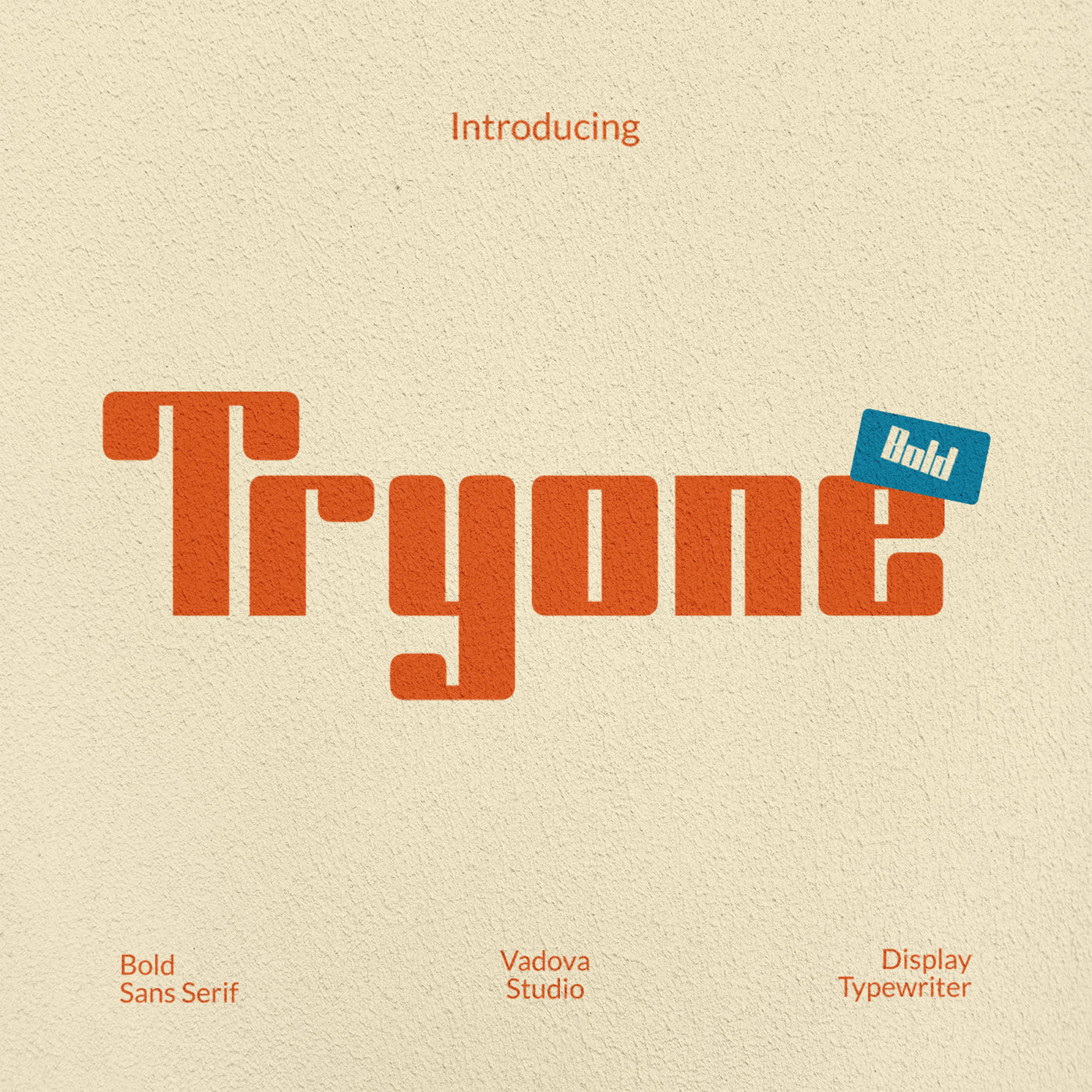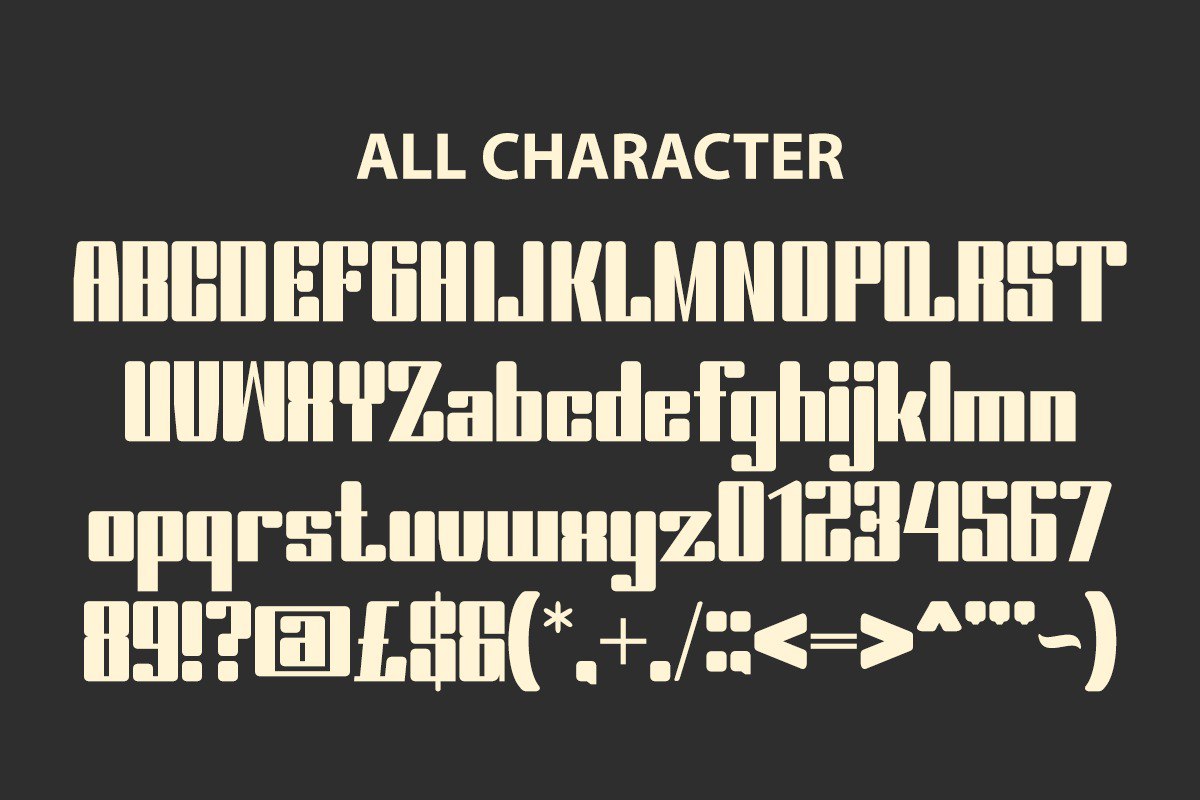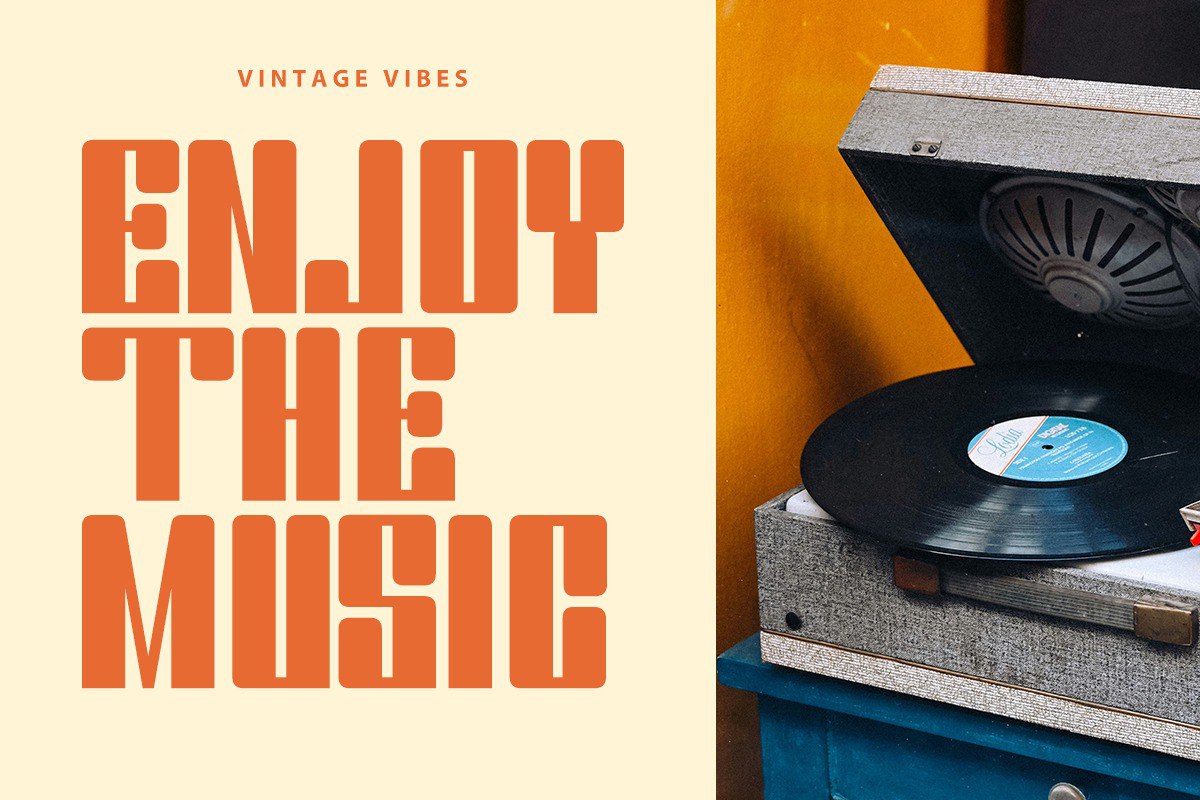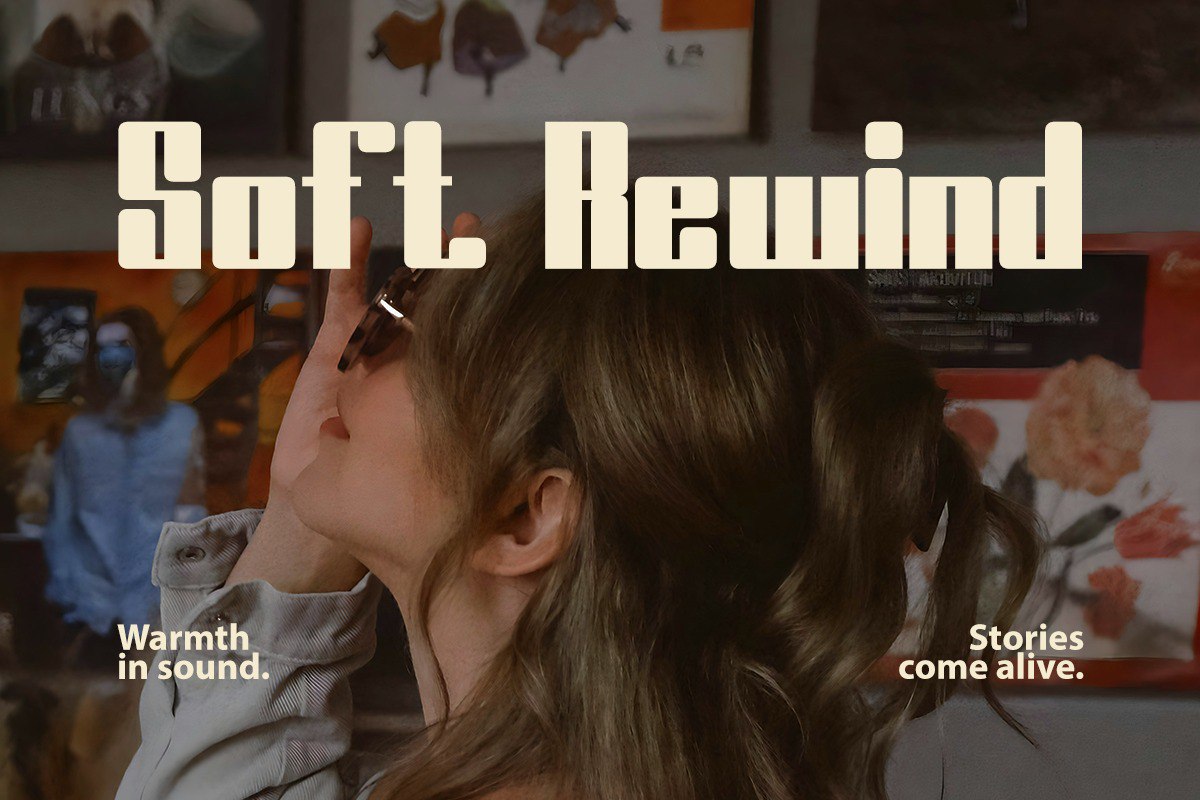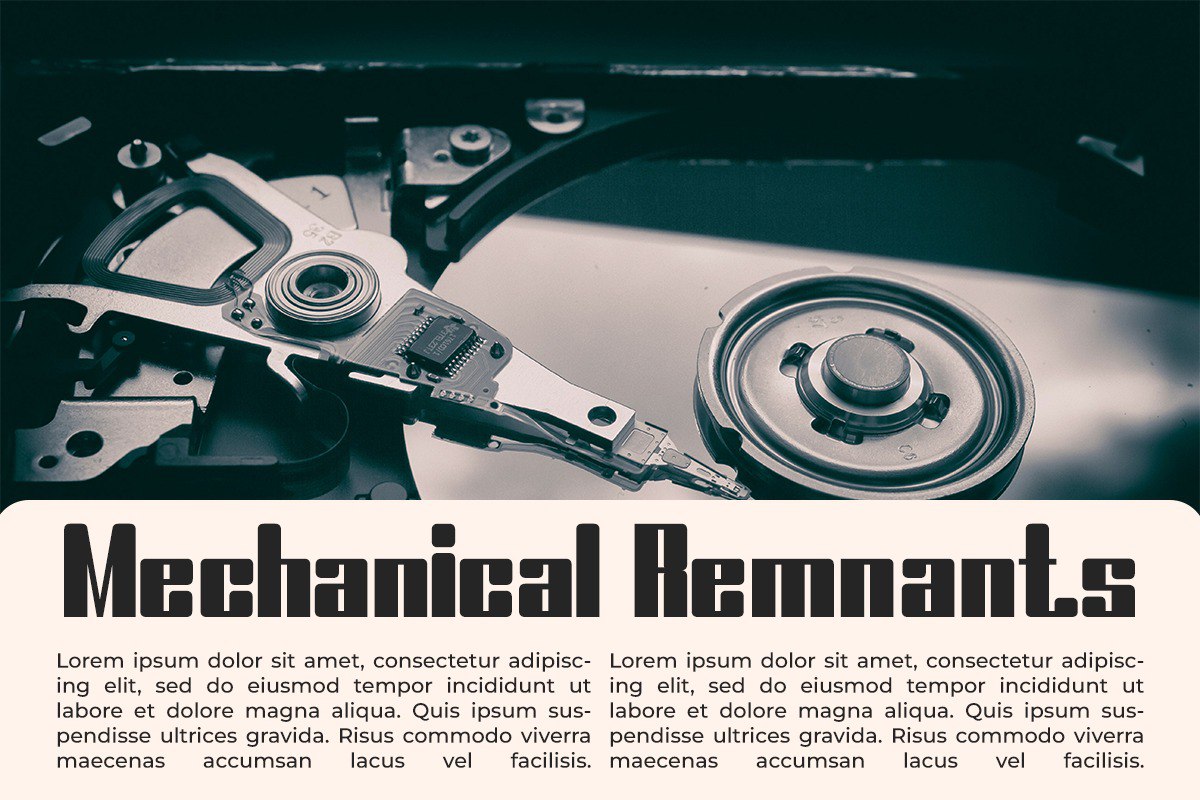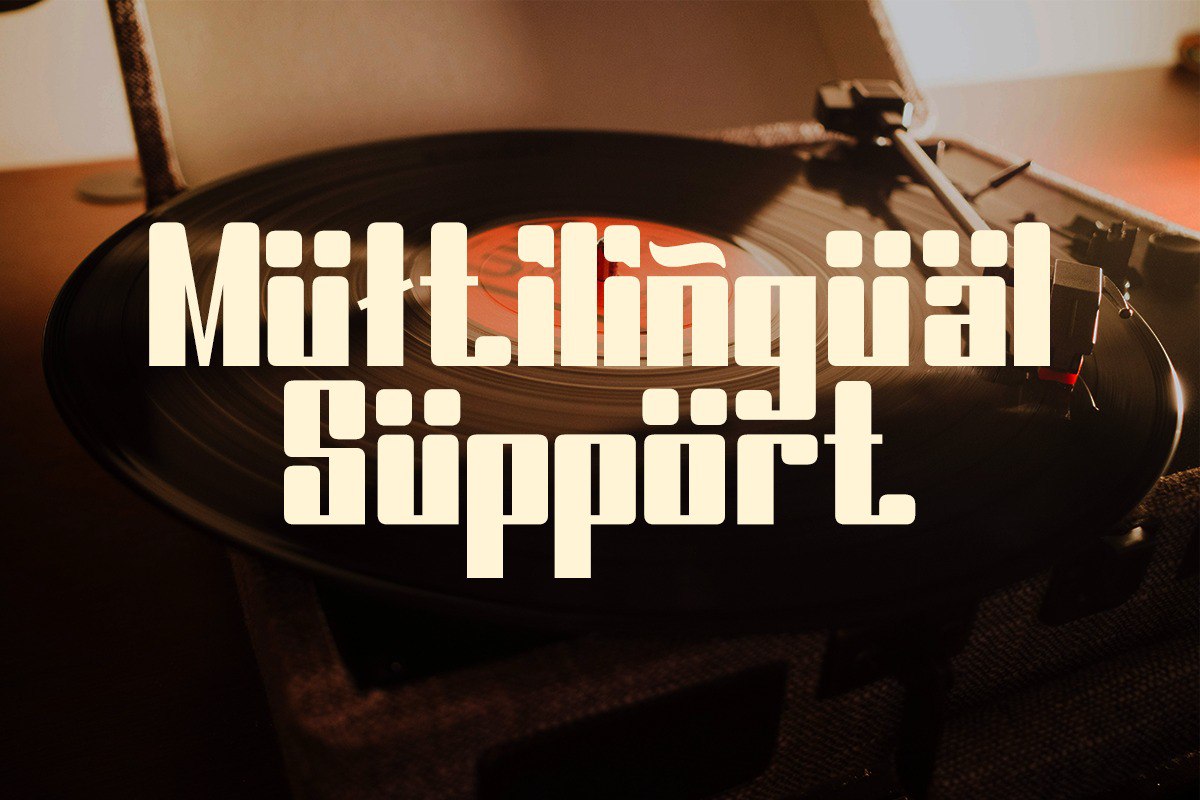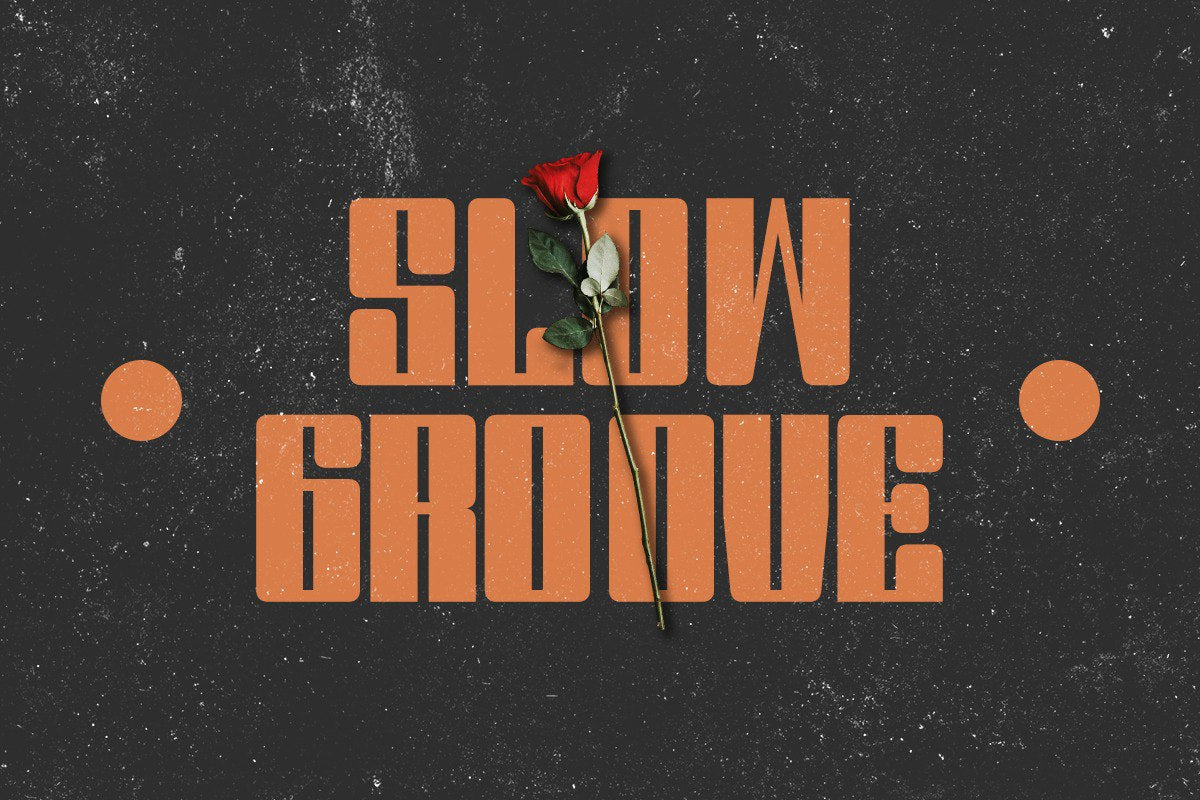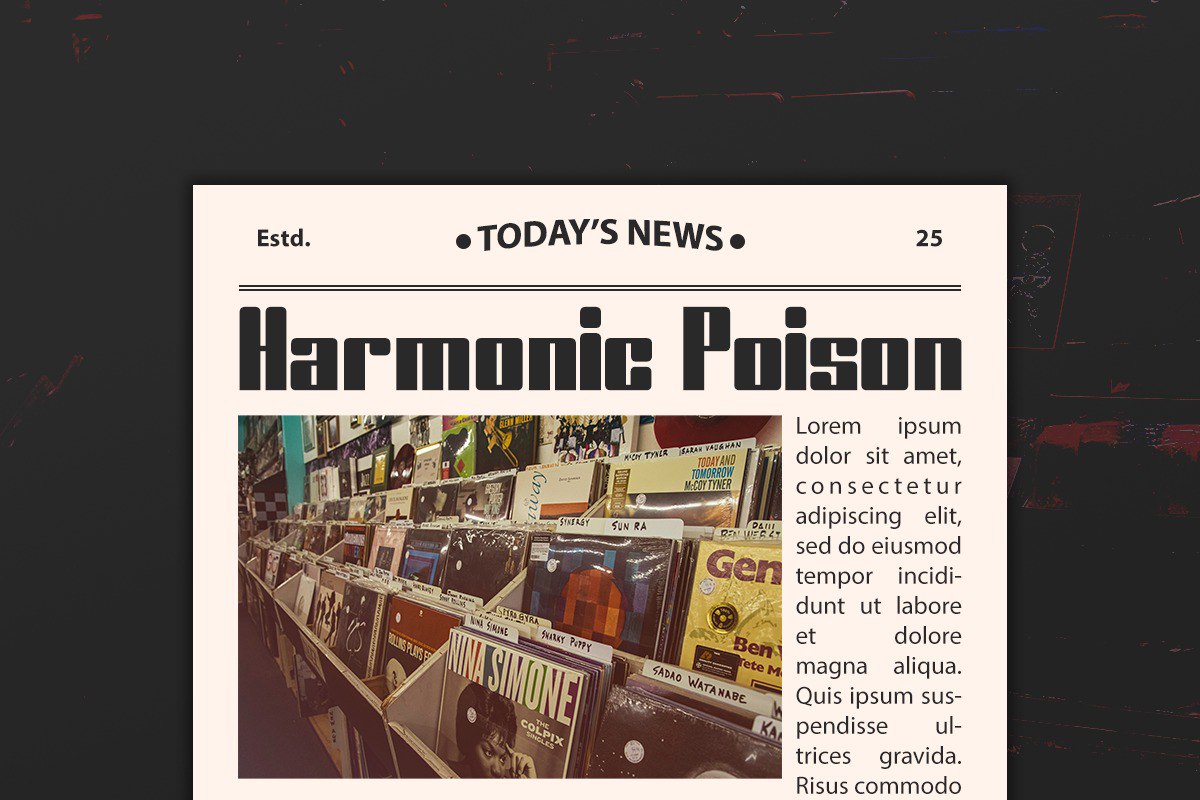
Tryone Bold Sans Serif Font
Tryone is a bold sans serif display typeface that blends the strength of modern design with retro typewriter aesthetics. Featuring tall, condensed letterforms and powerful visual weight, this font is ideal for album covers, editorial titles, vintage branding, digital flyers, and impactful posters. Its unique character set ensures versatility across nostalgic and contemporary creative projects alike.
Tryone is a bold, condensed sans serif display font combining modern design with retro typewriter-style letterforms. It includes uppercase and lowercase characters, numerals, and punctuation, and is available in TTF, OTF, and WOFF formats.